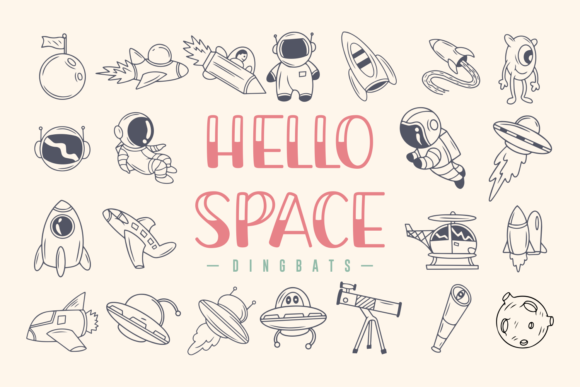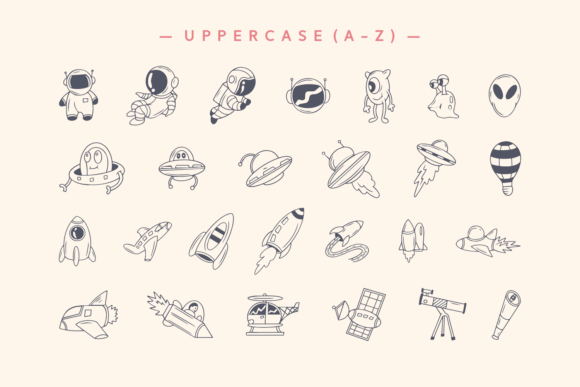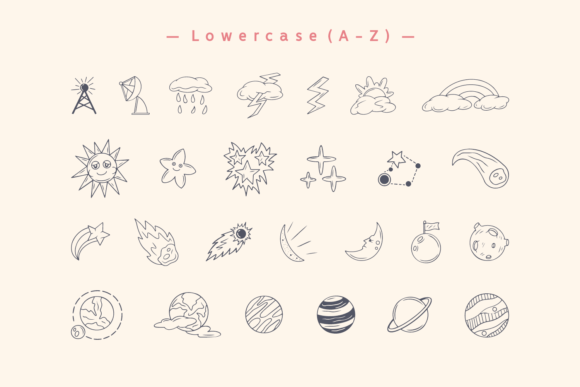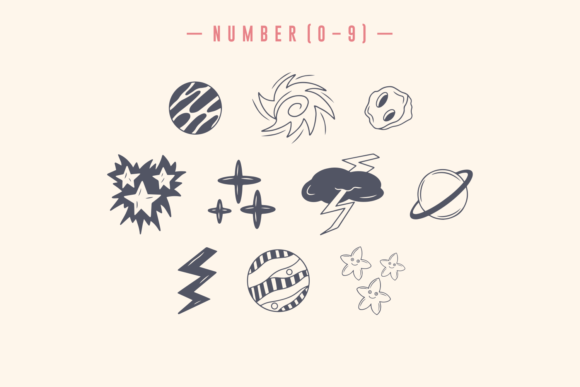
About Hello Space Font
“Hello Space” is an enchanting and versatile dingbats font that brings a sense of adventure and wonder to your projects. With its captivating space-themed icons, this font is sure to add a unique touch to your designs and make them more visually appealing.
Featuring a variety of space-related doodles and symbols, “Hello Space” offers endless creative possibilities. Whether you’re designing posters, invitations, logos, or any other project, this font will help you create a captivating and lively composition.
The space-themed icons in “Hello Space” can be used to enhance various design elements. They can be employed as decorative elements around text, adding a whimsical touch to headlines, titles, or paragraphs. You can also use these icons as bullet points or separators to visually organize information in a visually pleasing way.
Furthermore, “Hello Space” can be a great asset for educational materials, especially those related to astronomy, science, or children’s learning. The icons can represent celestial bodies, rockets, planets, stars, and other space-related objects, making the learning experience more engaging and enjoyable.
When using “Hello Space,” feel free to experiment with different sizes, colors, and compositions to suit your project’s needs. Combine the icons with other fonts and graphic elements to create a cohesive and visually appealing design that aligns with your theme or message.
Whether you’re designing for personal use, educational purposes, or commercial projects, “Hello Space” will surely add a touch of adventure and liveliness to your creations. Embrace the wonders of the cosmos with this delightful dingbats font and watch your designs come to life!